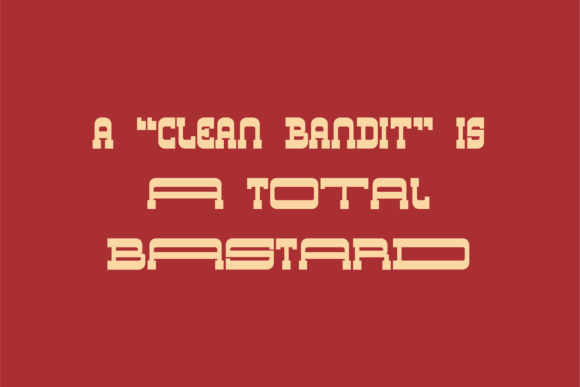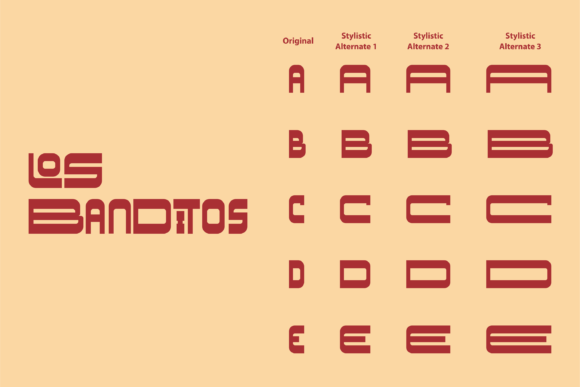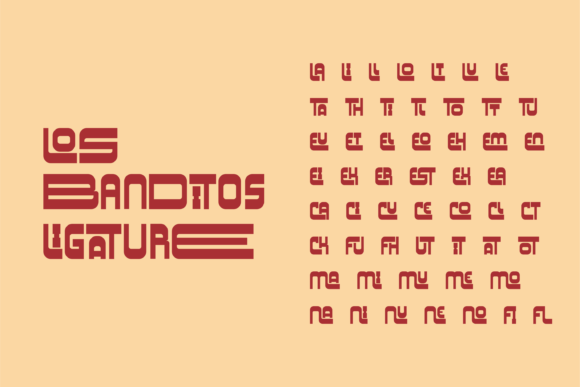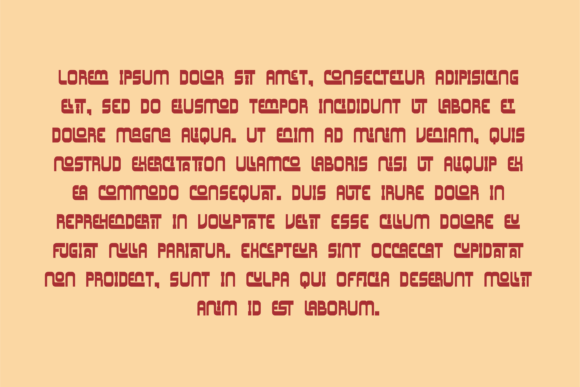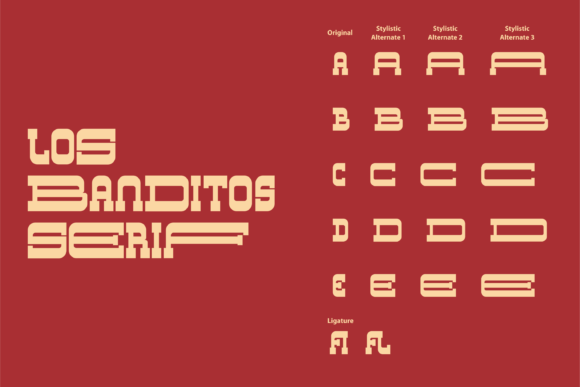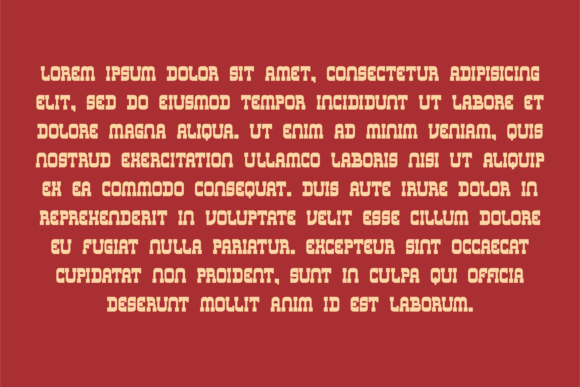
Introduction to Los Banditos Font
Los Banditos is a minimal yet incredibly elegant duo font, a beautiful mix between serif and sans serif.
Suitable to a wide variety of designs due to its neat and simple style, Los Banditos has the potential to become your favorite go-to font, no matter the occasion .
Key Features of Los Banditos Font
Why Choose Los Banditos Font?
Los Banditos Font offers exceptional quality and versatility, making it a valuable addition to your design toolkit. Whether you’re creating for personal projects or commercial use, Los Banditos Font delivers professional results.